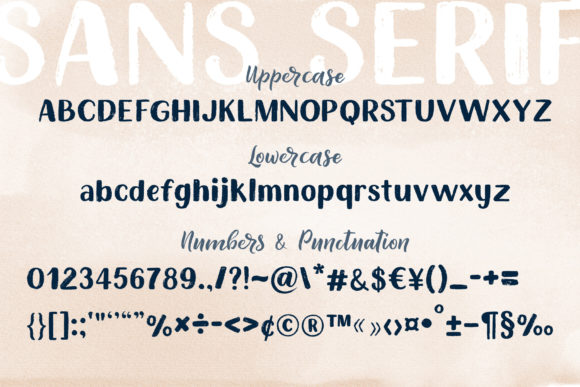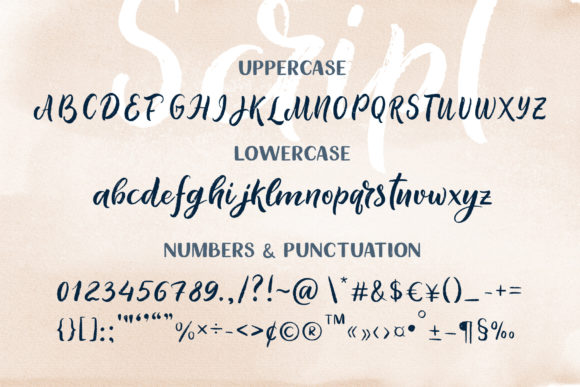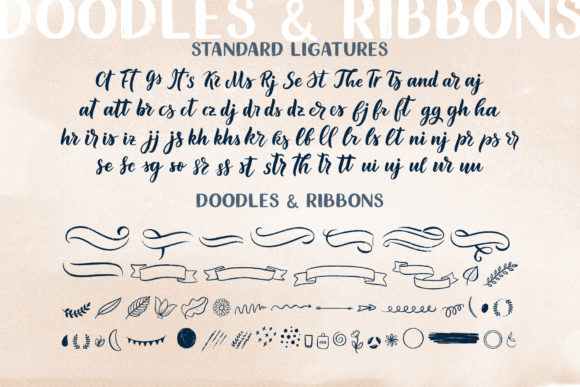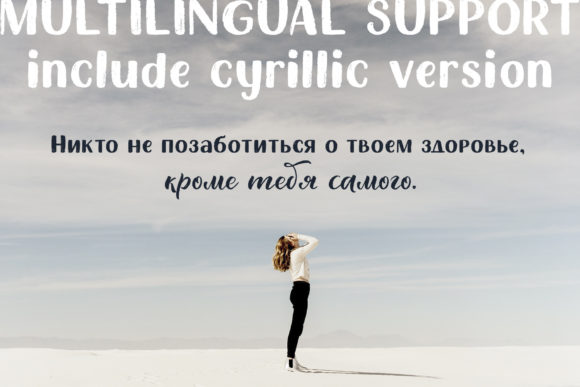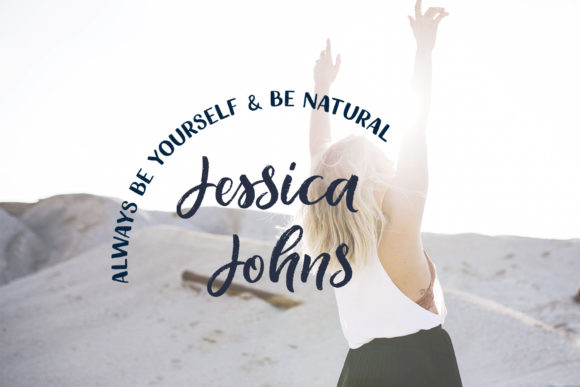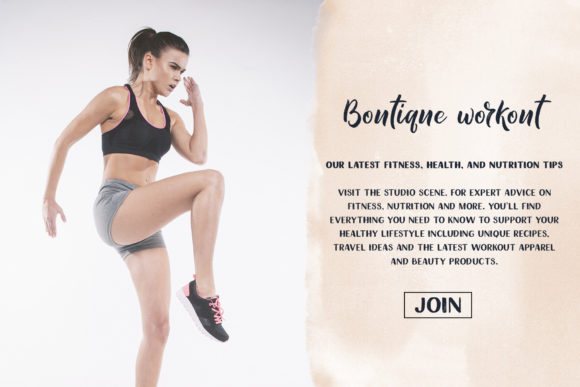
The Beauty of Imperfection: Unpacking the Beauty Inside Font
I’ll never forget the time I was working on a wedding invitation project, and my client asked for a font that looked like it was handwritten with love. I scoured the internet, but nothing seemed quite right. That was until I stumbled upon the Beauty Inside font trio. With its rough texture and hand-drawn style, it added a natural and authentic feel to my design that I had been searching for.
- ✨ The unique, hand-drawn aesthetic that adds a touch of warmth to any design
- ✅ The versatility of the font trio, which includes three distinct styles to suit different design needs
- ✅ The OpenType features, which allow for easy access to glyphs and stylistic alternates
- ✅ The font’s suitability for a wide range of design projects, from logotype creation to wedding invitations and book covers
While the Beauty Inside font trio is incredibly useful, there are a few things to keep in mind. ⚠️ Some users have reported issues with kerning, particularly when using the font at smaller sizes. Additionally, 🤔 the font’s rough texture may not be suitable for all design projects, particularly those that require a high level of polish.
The Story Behind Beauty Inside
The Beauty Inside font trio was designed with the intention of capturing the beauty of imperfection. The designer, who wishes to remain anonymous, was inspired by the imperfections of hand-drawn lettering and sought to create a font that would bring a touch of warmth and authenticity to design projects. The result is a font trio that is both versatile and unique.
| What is the Beauty Inside font trio? | The Beauty Inside font trio is a collection of three display fonts with a rough texture and hand-drawn style. |
| What design projects is Beauty Inside suitable for? | Beauty Inside is suitable for a wide range of design projects, including logotype creation, lettering compositions, wedding invitations, fashion projects, book design covers, and more. |
| Does Beauty Inside support OpenType features? | Yes, Beauty Inside supports OpenType features, including glyphs and stylistic alternates. |